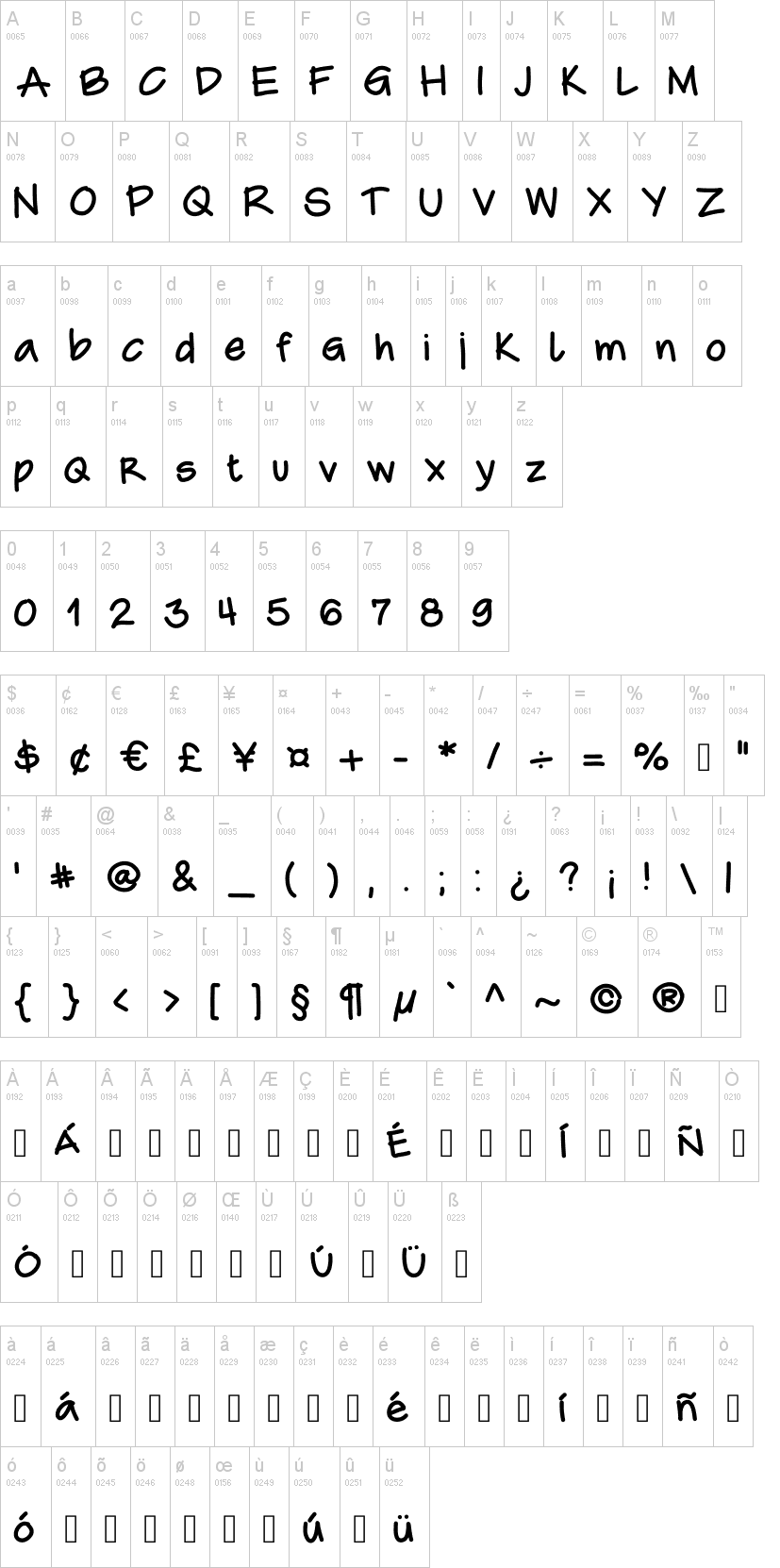
carohand
Explore the Whimsical Nature of CaroHand Font
CaroHand, crafted by the talented designer Alex Smith in 2022, embodies the effortless charm of handwritten lettering. This font is perfect for adding a personal touch to invitations, logos, and creative projects that require a friendly, artistic vibe. Its fluid strokes and whimsical style make it a favorite among graphic designers aiming to create a warm and inviting atmosphere.
The Inspiration Behind CaroHand Font
Inspired by the loose and organic nature of handwritten notes, CaroHand was developed to convey a sense of warmth and authenticity. Alex Smith’s keen attention to detail ensures that this font captures the spirit of casual communications, ideal for projects that seek to foster connections and convey personal sentiments.
Creative Uses for CaroHand Font
CaroHand excels in applications ranging from personal blogs and social media graphics to event invitations and custom signage. Its approachable style makes it perfect for youth-oriented brands, artisanal products, and any design project that benefits from an inviting, human touch.